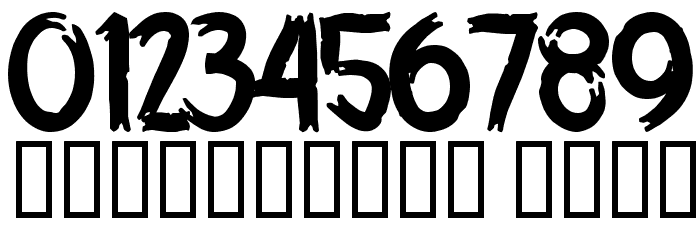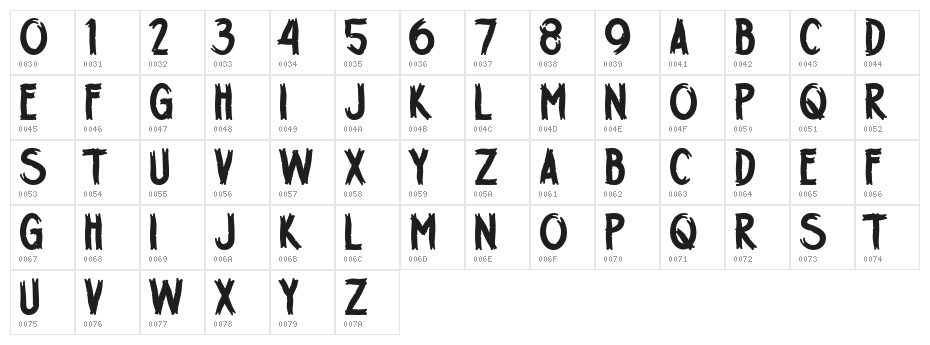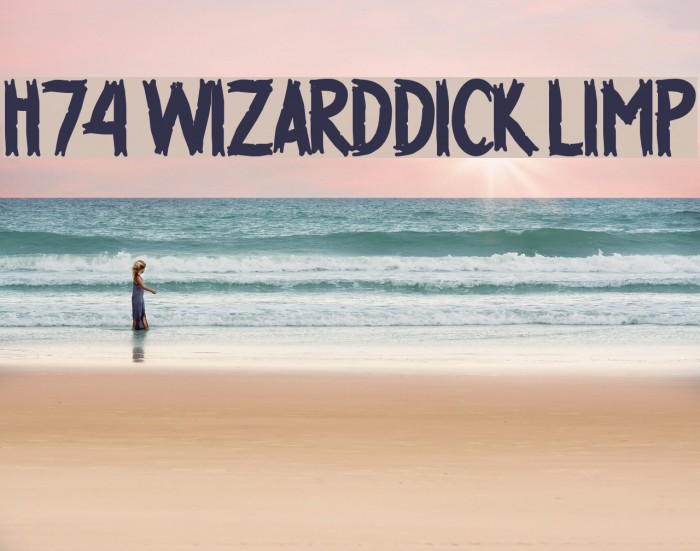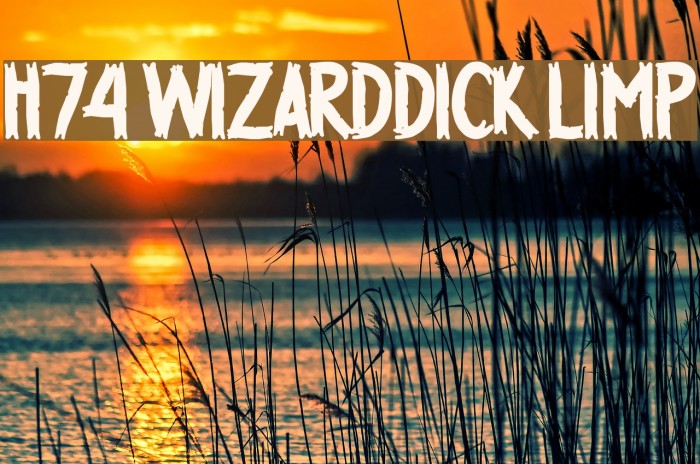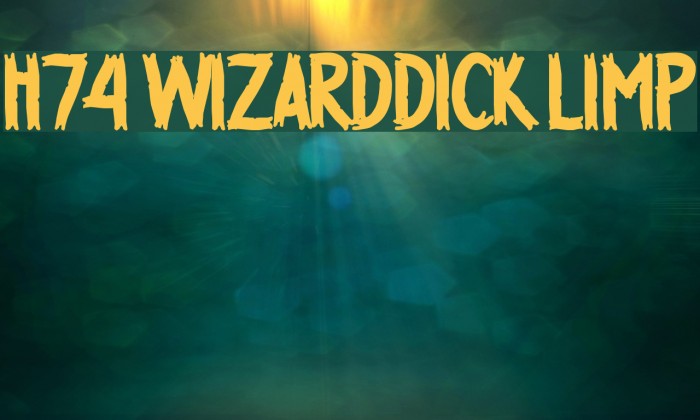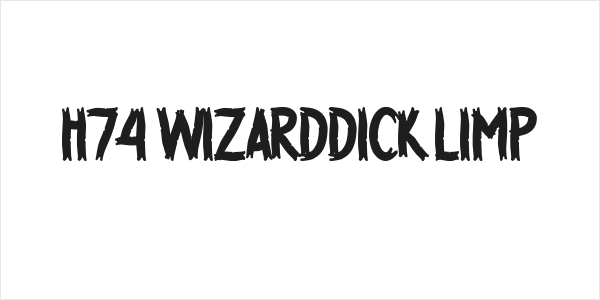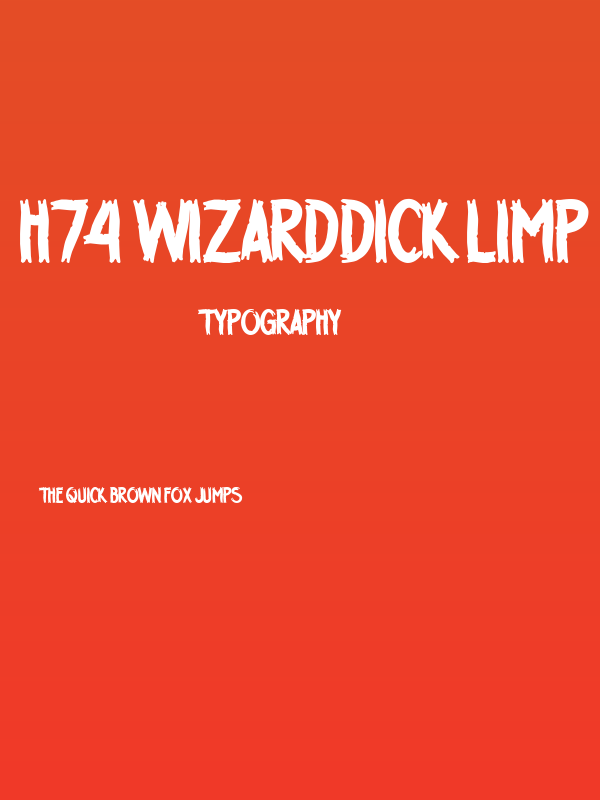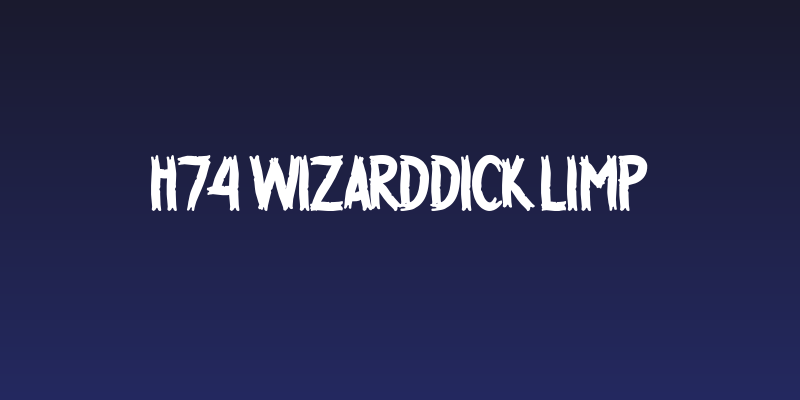
H74 WizardDick Limp Font
H74 WizardDick Limp Description
This font features a bold and dynamic style with a hand-drawn appearance, characterized by its rough, brush-like strokes. The letters exhibit an irregular and energetic form, giving it a raw and expressive look. The uppercase and lowercase characters maintain a consistent style, with a slightly condensed structure that enhances its boldness. The numbers follow the same aesthetic, ensuring uniformity across all characters. The special characters are designed with the same brush-like texture, adding to the font's cohesive and artistic feel. This font is ideal for projects that require a strong visual impact and a creative, edgy vibe.
| Proposed Projects | Ideal for posters, album covers, graffiti art, and any project needing a bold, artistic touch. |